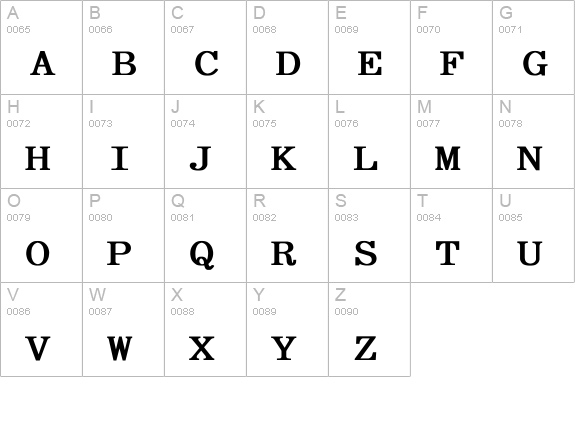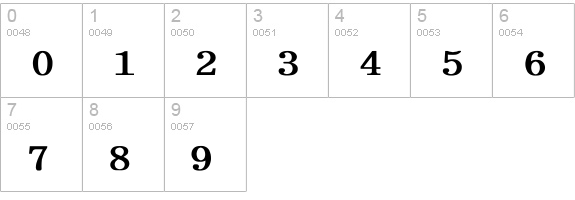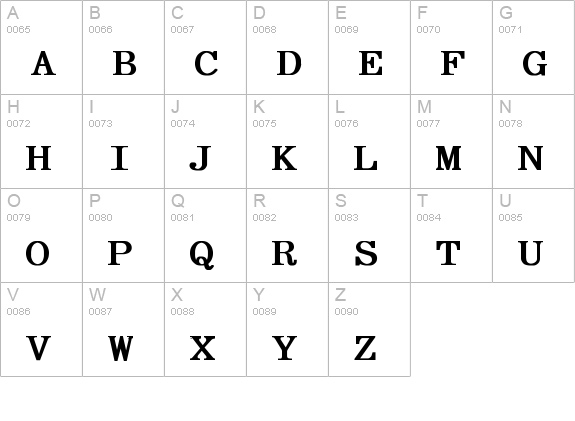
Asphalt Fixed Bold Font Details
Asphalt Fixed Bold is a strong, high-contrast variant in the Asphalt typeface family \xE2\x80\x94 well suited to headlines, attention-grabbing titles, and strong calls-to-action.
Asphalt Fixed Bold font is a modern and stylish typeface designed for bold and impactful designs. Its sturdy letterforms and clean lines make it perfect for headlines, posters, and branding projects. The bold weight of this font commands attention and adds a touch of sophistication to any design. What makes Asphalt Fixed Bold font even more appealing is that it is available for free download from FontsMarket.com. This means you can easily access this versatile and eye-catching font to elevate your design projects without any cost. Don't miss out on the opportunity to enhance your designs with Asphalt Fixed Bold font - download it for free today!